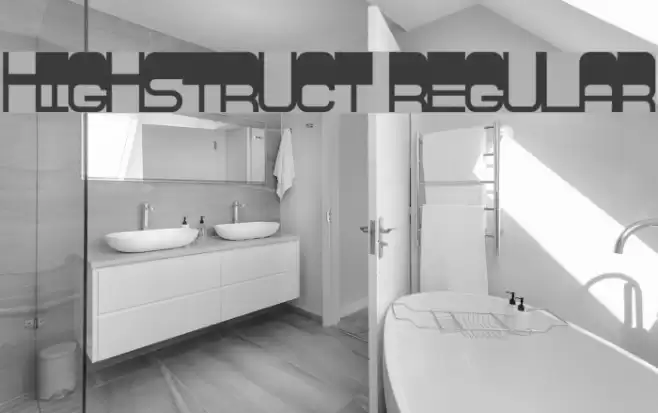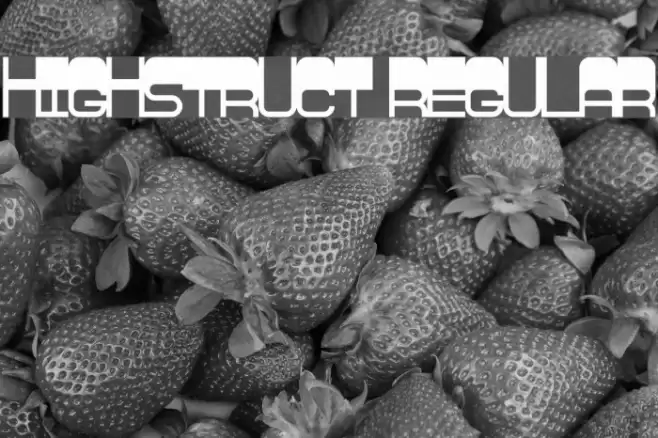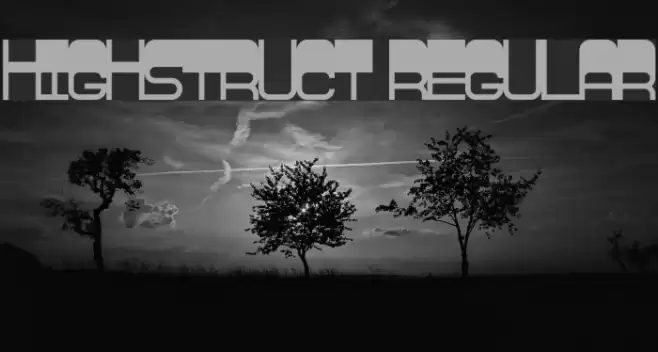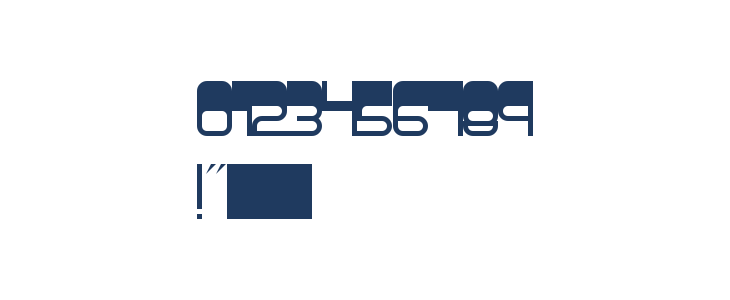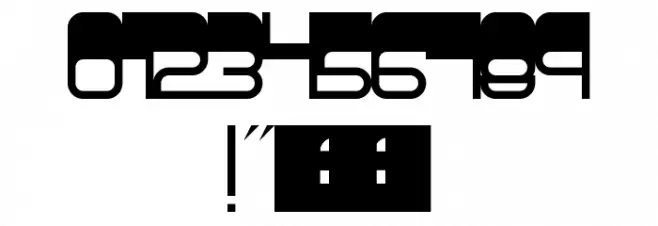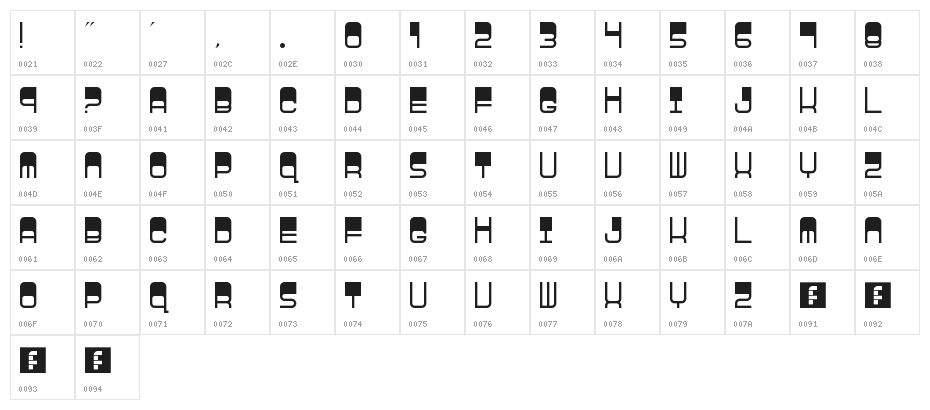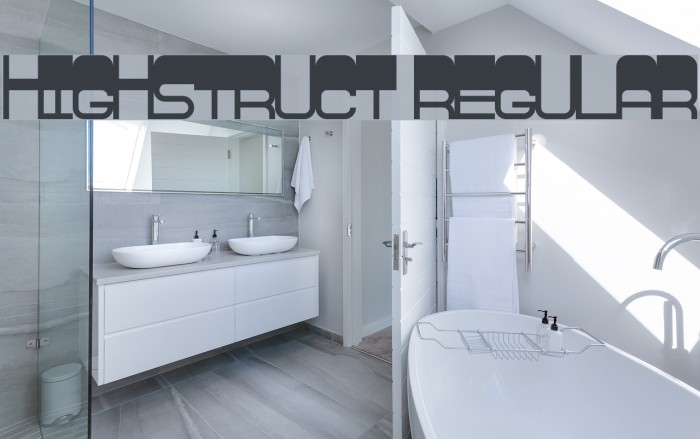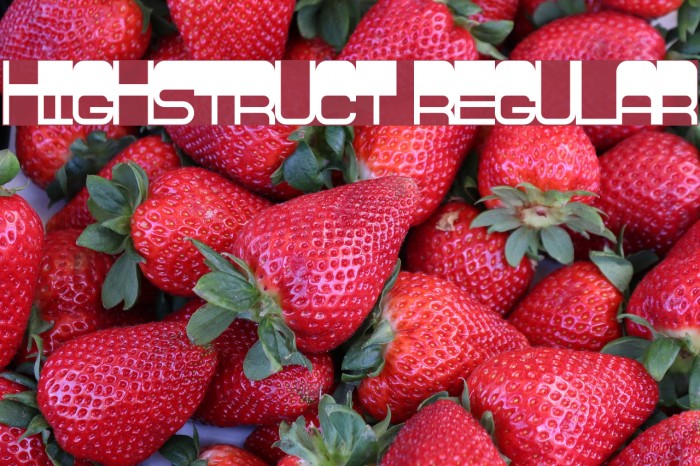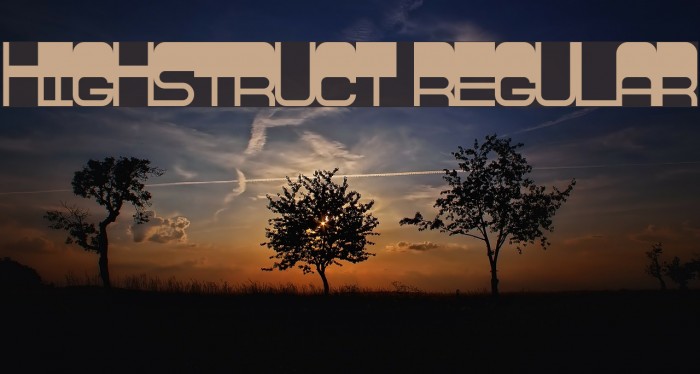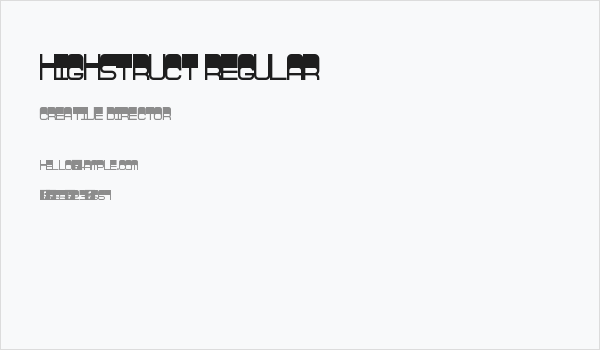
Highstruct Regular Font
Highstruct Regular Description
This font features a bold and modern design with a futuristic aesthetic. The characters are constructed with thick, block-like strokes that create a strong visual impact. The uppercase and lowercase letters maintain a consistent geometric style, with rounded edges and a uniform height that enhances readability. The numbers and special characters follow the same design principles, ensuring a cohesive look across all text elements. The font's unique structure makes it suitable for projects that require a contemporary and eye-catching appearance.
A bold, modern font with a futuristic, geometric design from Uncategorized fonts.
- Proposed Projects: Ideal for branding, posters, digital media, and any project that requires a modern and striking visual style.